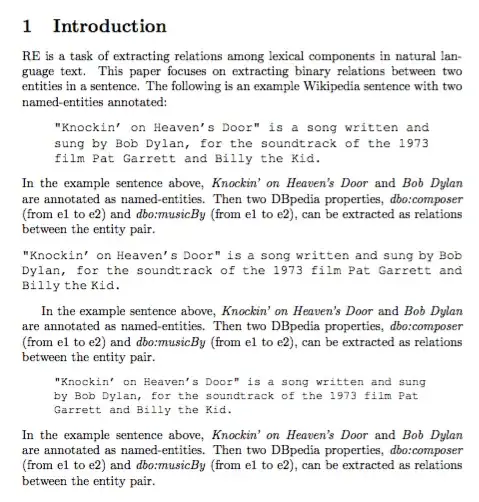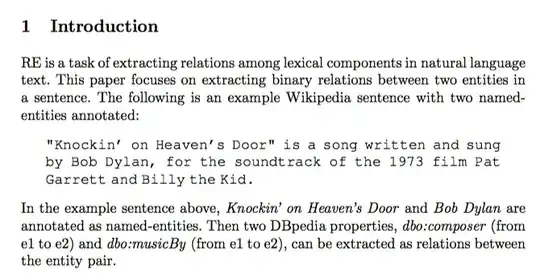
I want to use Courier font for an example sentence but it makes the line overflow...
I am using the following code:
\usepackage{courier}
\begin{document}
\section{Introduction}
RE is a task of extracting relations among lexical components in natural language
text. This paper focuses on extracting binary relations between two entities in a
sentence. The following is an example Wikipedia sentence with two named-entities
annotated:\\
\texttt{"Knockin' on Heaven's Door" is a song written and sung by Bob Dylan,
for the soundtrack of the 1973 film Pat Garrett and Billy the Kid.}\\
In the example sentence above, \textit{Knockin' on Heaven's Door} and
\textit{Bob Dylan} are annotated as named-entities. Then two DBpedia properties,
\textit{dbo:composer} (from e1 to e2) and \textit{dbo:musicBy} (from e1 to e2),
can be extracted as relations between the entity pair.
\end{document}
In the screen shot bellow, example line (in Courier font) reaches to right margin. ('by' is out of the body!)
I want the example sentence to fit inside the body and not reaching into the margin. How can I solve this problem?
• @cfr I'm using a Conference template so I cannot change anything. Is there Courier font which does not cause line overflow? – GyuHyeon Choi May 12 '17 at 11:20
• It is unlikely that a conference template will let you override their choice of fonts. Are you sure you're allowed to do that? – cfr May 12 '17 at 13:02
Solutions were already proposed and accepted before I write this, but keep in mind: Courier is a monospaced font. If you attempt to "squeeze" or "stretch" it by using other methods to change the cursor advance (character spacing), then you are defeating the purpose of Courier. That might be acceptable, however. –  May 12 '17 at 14:37
The quote environment is defined in the LaTeX kernel, so it's quite unlikely that a conference template disallows its usage.
I propose three solutions; each one is implemented as an environment as it should.
Note that \\ should never be used for ending paragraphs and must never precede a blank line. If you want to “leave vertical blank space” use the proper methods with \vspace or \addvspace.
\documentclass{article}
\usepackage{courier}
\newenvironment{ttquote}
{\quote\ttfamily\raggedright}
{\endquote}
\newenvironment{ttquotejustify}
{\par\addvspace{\topsep}%
\ttfamily\setlength{\spaceskip}{0.3em plus 0.3em}%
\noindent\ignorespaces}
{\par\addvspace{\topsep}\ignorespacesafterend}
\newenvironment{ttquotesmall}
{\quote\ttfamily\raggedright\small}
{\endquote}
\begin{document}
\section{Introduction}
RE is a task of extracting relations among lexical components in natural language
text. This paper focuses on extracting binary relations between two entities in a
sentence. The following is an example Wikipedia sentence with two named-entities
annotated:
\begin{ttquote}
"Knockin' on Heaven's Door" is a song written and sung by Bob Dylan,
for the soundtrack of the 1973 film Pat Garrett and Billy the Kid.
\end{ttquote}
In the example sentence above, \textit{Knockin' on Heaven's Door} and
\textit{Bob Dylan} are annotated as named-entities. Then two DBpedia properties,
\textit{dbo:composer} (from e1 to e2) and \textit{dbo:musicBy} (from e1 to e2),
can be extracted as relations between the entity pair.
\begin{ttquotejustify}
"Knockin' on Heaven's Door" is a song written and sung by Bob Dylan,
for the soundtrack of the 1973 film Pat Garrett and Billy the Kid.
\end{ttquotejustify}
In the example sentence above, \textit{Knockin' on Heaven's Door} and
\textit{Bob Dylan} are annotated as named-entities. Then two DBpedia properties,
\textit{dbo:composer} (from e1 to e2) and \textit{dbo:musicBy} (from e1 to e2),
can be extracted as relations between the entity pair.
annotated:
\bigskip
\texttt{\spaceskip=.3em plus 0.2em minus .1em "Knockin' on Heaven's Door" is a song written and sung by Bob Dylan,
for the soundtrack of the 1973 film Pat Garrett and Billy the Kid.}
\bigskip
In the example sentence above, \textit{Knockin' on Heaven's Door} and
\textit{Bob Dylan} are annotated as named-entities. Then two DBpedia properties,
\textit{dbo:composer} (from e1 to e2) and \textit{dbo:musicBy} (from e1 to e2),
can be extracted as relations between the entity pair.
\end{document}